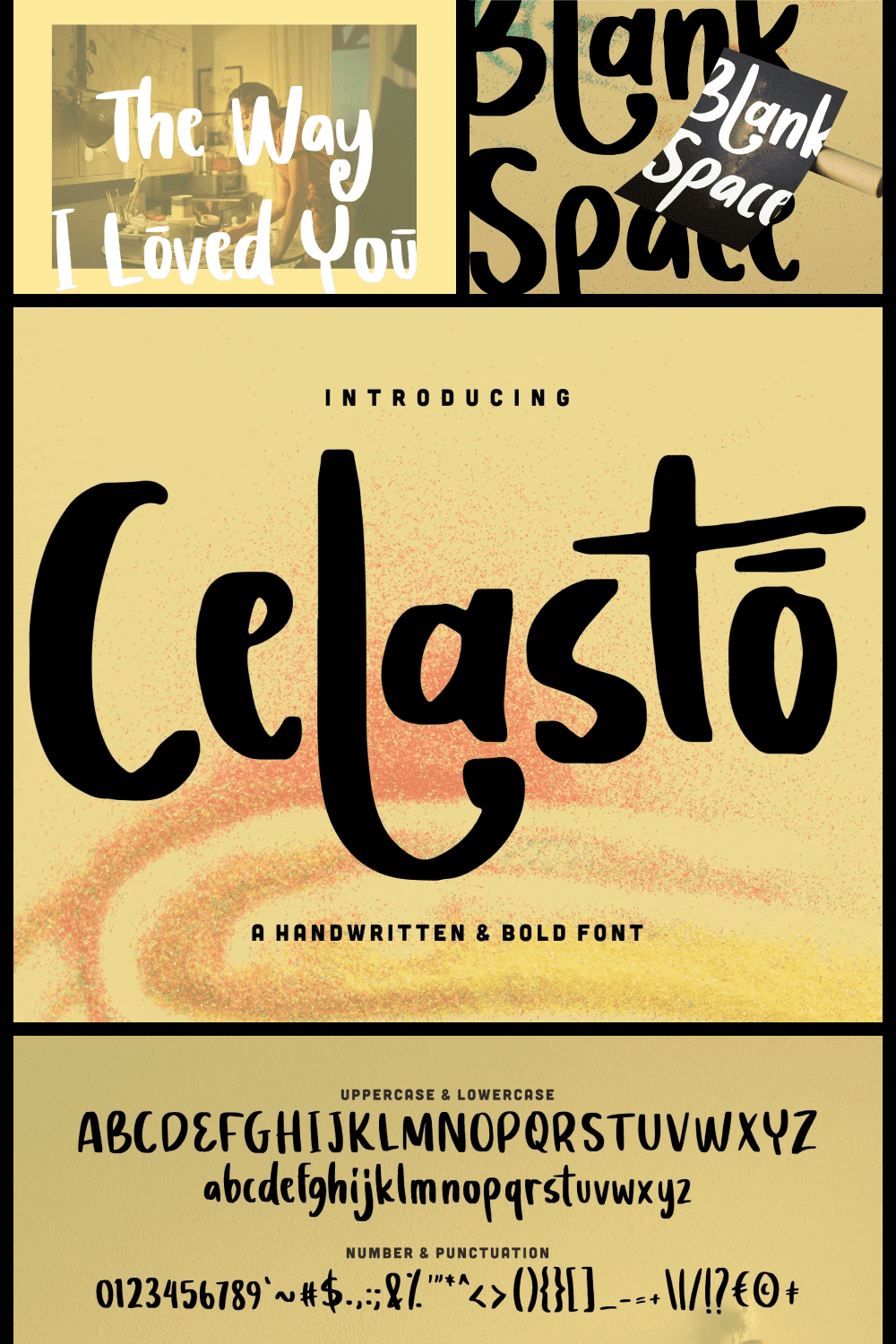
Bold Fonts. A font is a unique combination of tradition and modernity, light lettering, and sharp, bold characters. Each script carries a certain mood and helps to develop the project and present it beneficially. This element is an essential link in the interaction. One of the functions of typeface is aesthetics. Any project is filled with different design elements, which also includes the font. Depending on the direction of the project you need to choose this component.
Therefore, if you create a business presentation and use a whimsical font with unreadable letters, it spoils the audience’s impression. They will not be able to read the text and understand what the main message was. The choice of typeface also shows the professionalism of the designer, or vice versa.
Finding a suitable variant is quite difficult, and sometimes this process takes a lot of time, but MasterBundles is ready to help you, because we have created an entire collection of the best bold fonts. Why exactly? This kind of script helps to highlight important information. It looks cool on various banners, announcements, ads, websites, signs, and presentations. In the collection, you will find a large number of choices that are suitable for different fields: medicine, education, business, entertainment, etc. We offer you to dive into the huge world of bold fonts and choose the product that will perfectly complement your project and make it outstanding.
Trackers Bold Script Fonts
Bourbon Font Bundle
The Bold Font Nightfall
Black Ryder – Bold Script Font
Devie Regular Bold Font